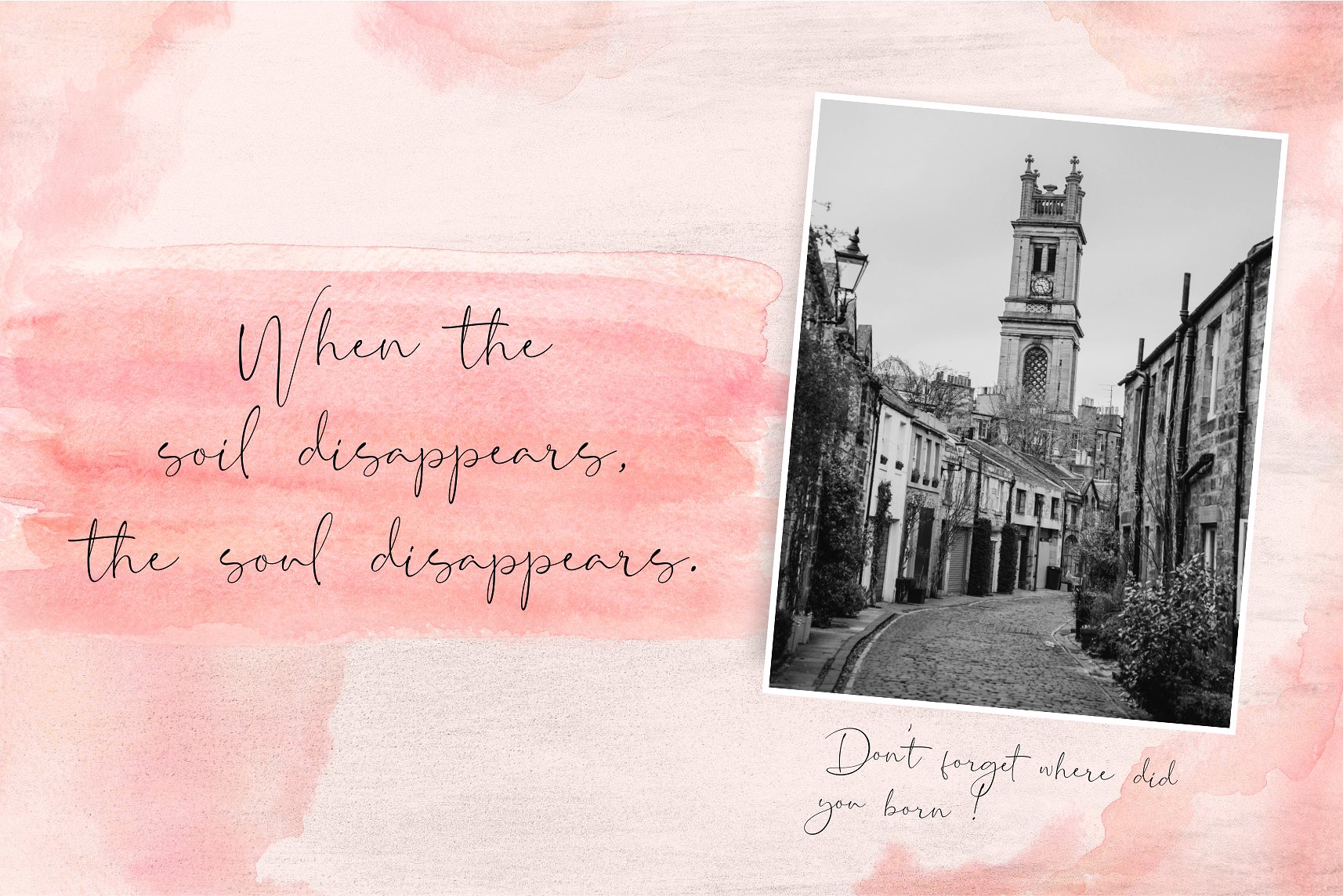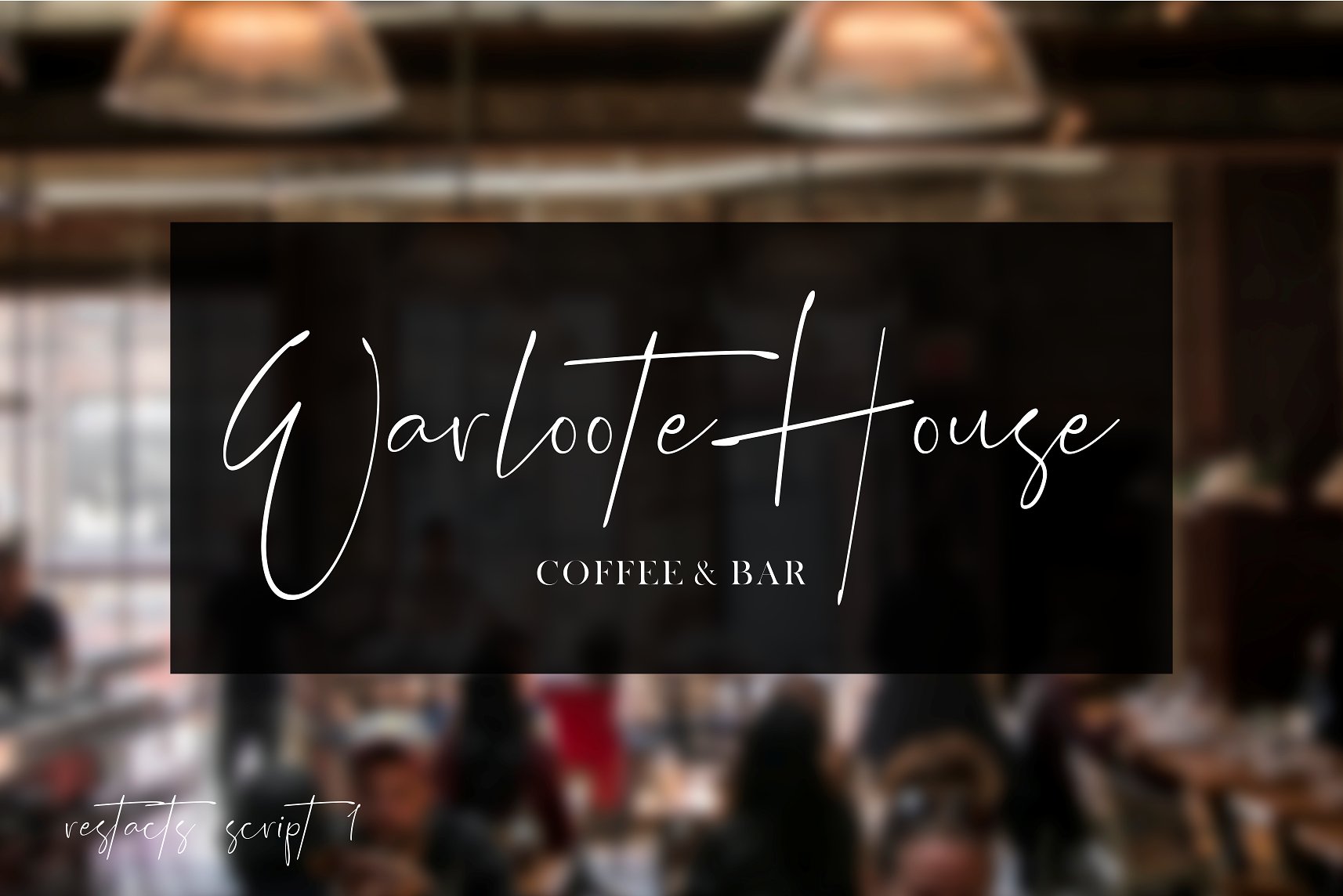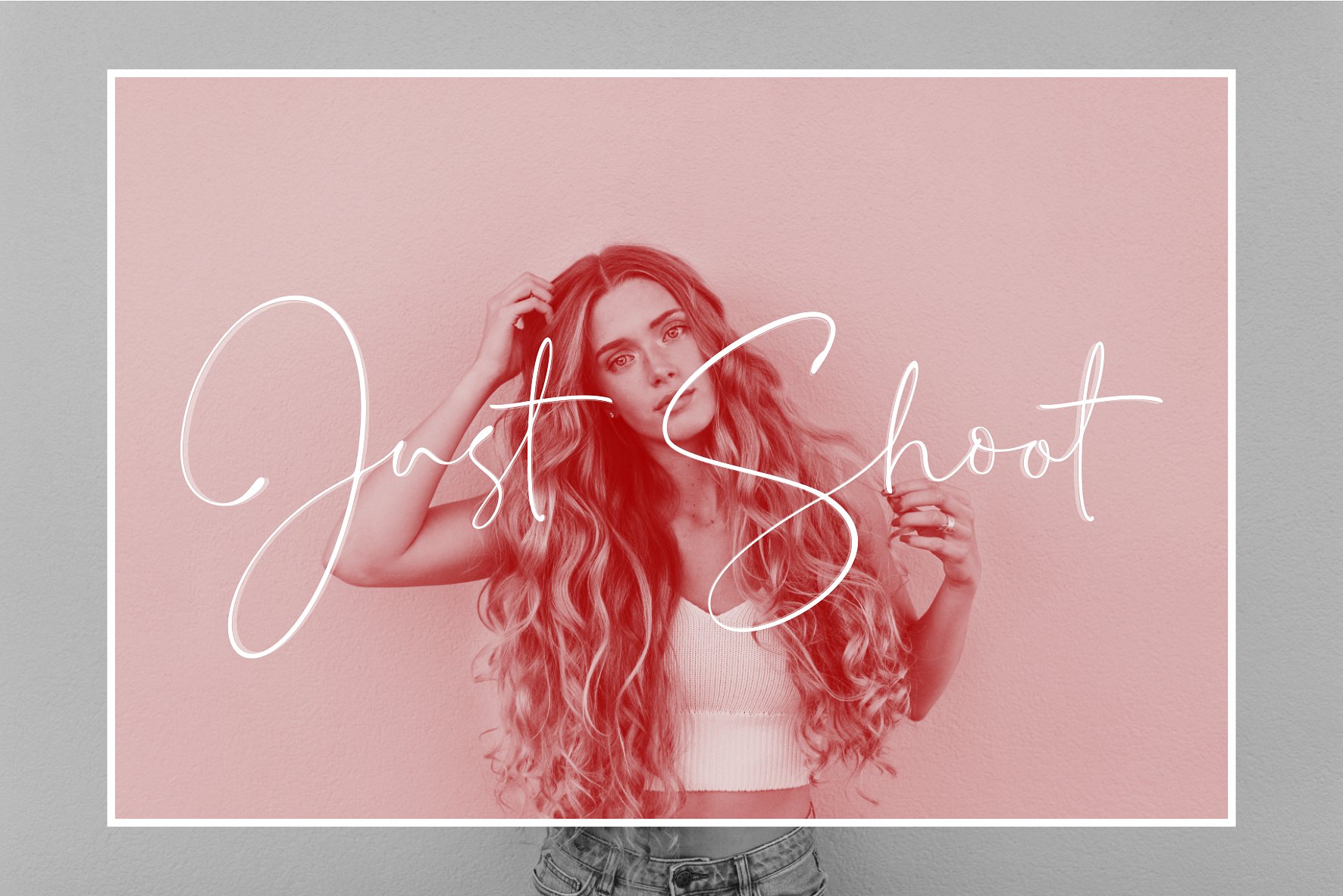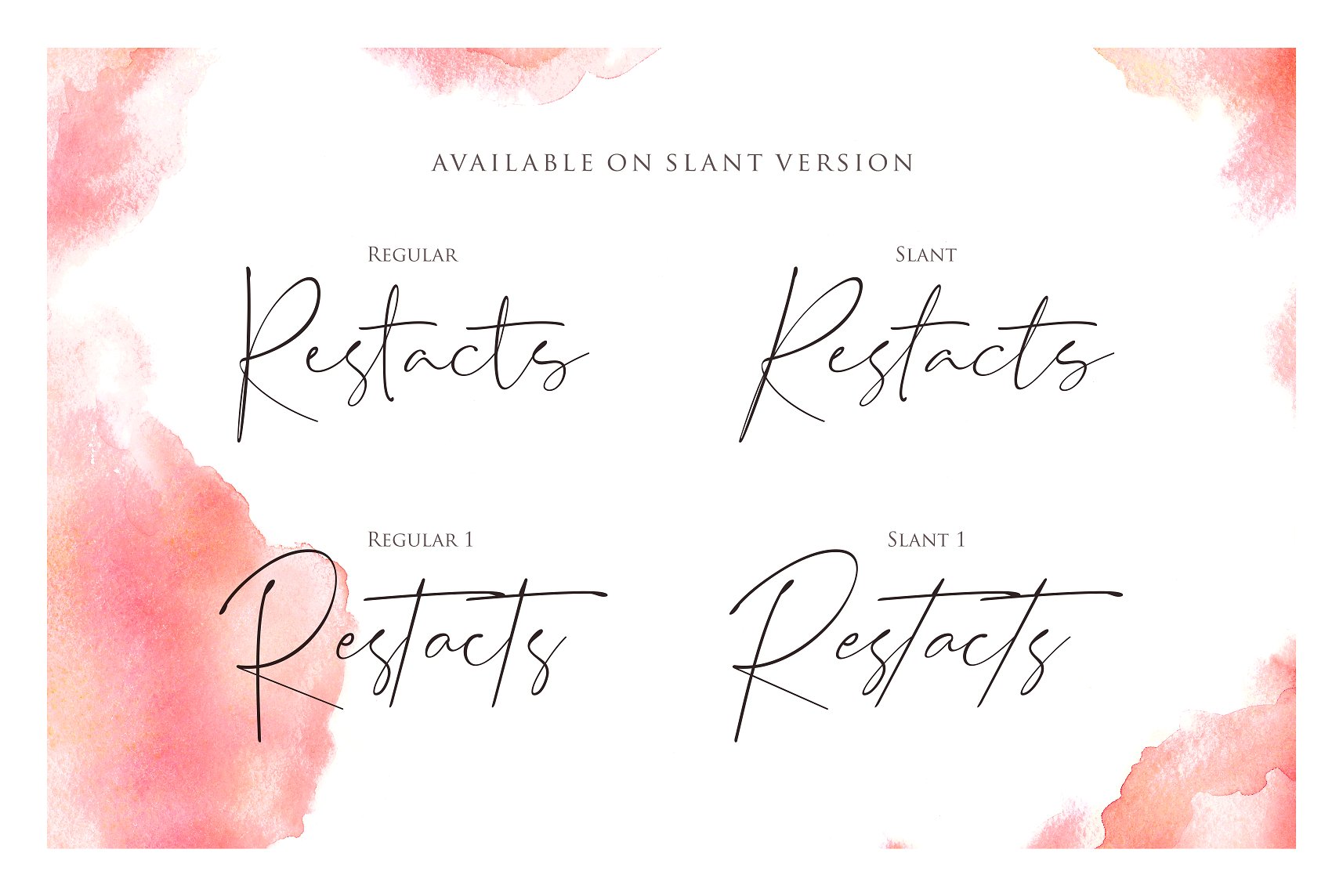
Restacts Script Font
A casual script font by RedyStudio. Introducing Restacts Font. Restacts, here we provide 2 variants, the first one is Restacts Script which is more casual and feminine, the second variant is more elegant and bolder. Both of them look smooth and you can see our preview for more details. Restacts provides beautiful letter essence for any design project including Branding, social media, logo, wedding invitation, photography overlays, etc.